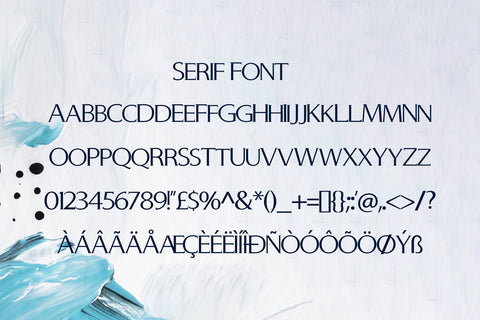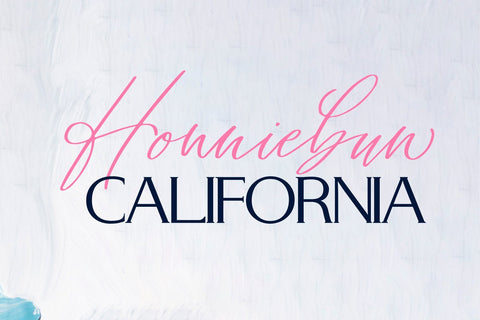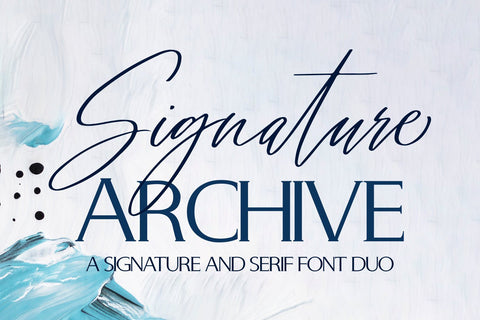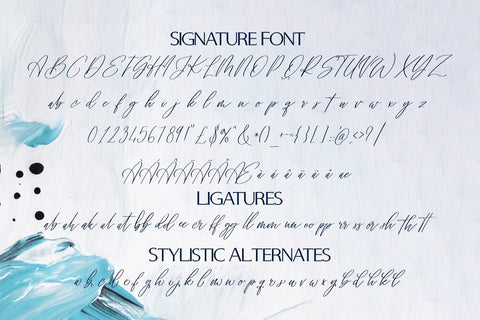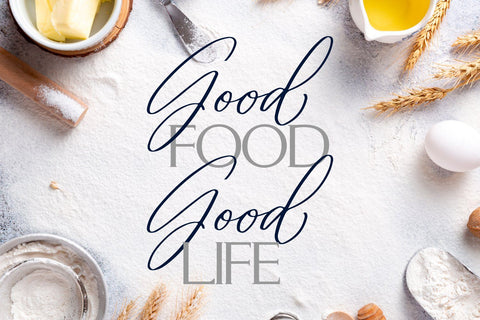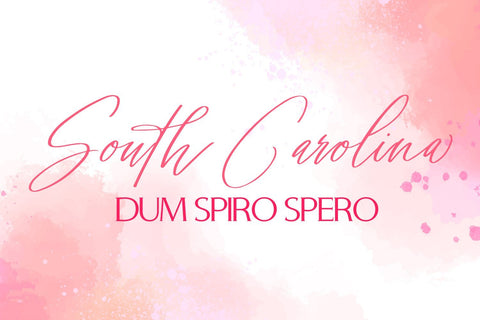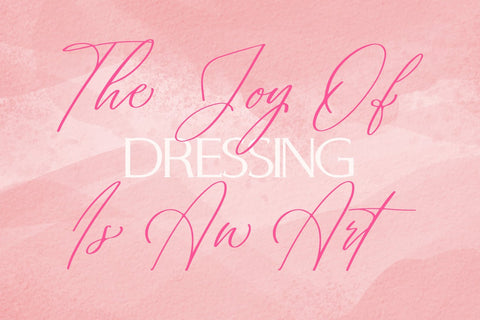
Signature Archive - Serif and script font duo
Signature Archive - Serif and script font duo, is a handwritten script font together with a serif font. This font will be perfect to use for all your upcoming Wedding DIY:s, Logos, Branding, Book covers or other quote based DIY:s.
Signature Archive - Serif and script font duo can be used for anything such as T-Shirt designs, phone cases, greeting cards, invitations, mugs and so much more! Be creative but most importantly have fun!
- Signature Archive Script - Comes with Uppercase A-Z and lowercase a-z letters, 0-9 numbers, stylistic alternates, ligatures, limited punctuation and supports Western European Languages
- Signature Archive Script - Comes with Uppercase A-Z and lowercase a-z letters, 0-9 numbers, limited punctuation and supports Western European Languages